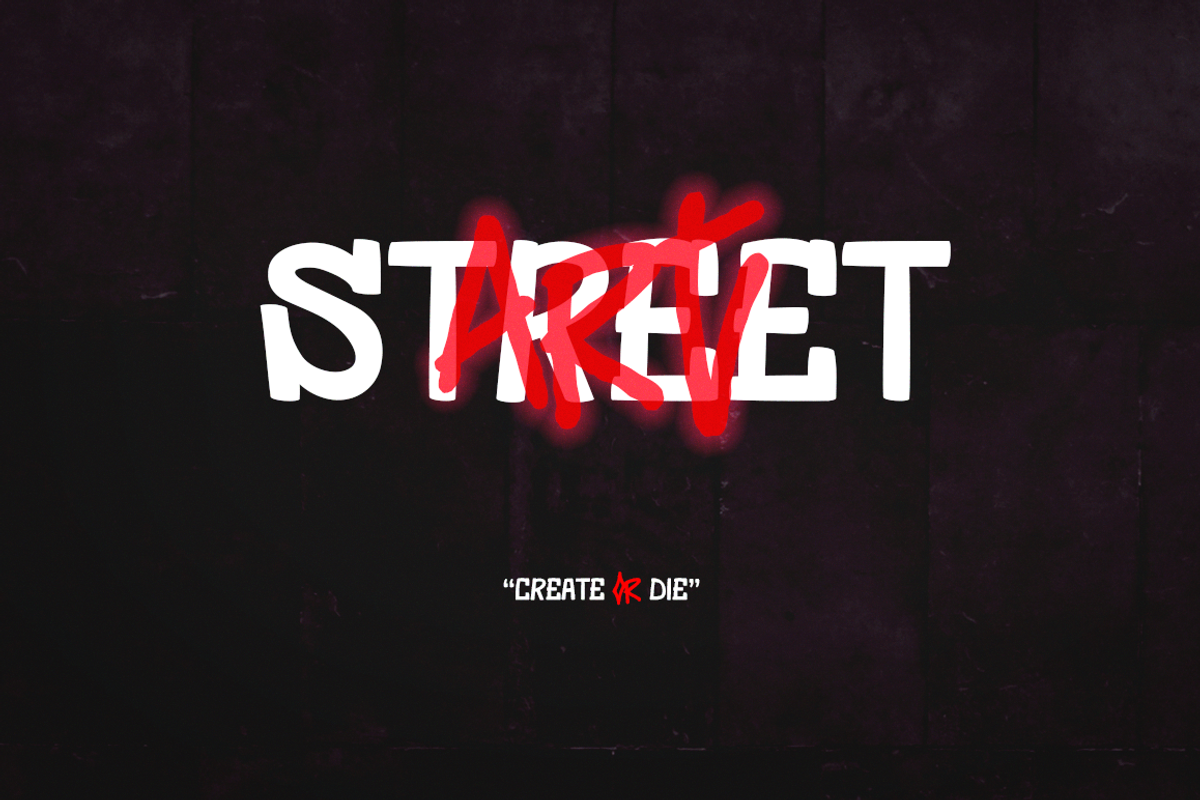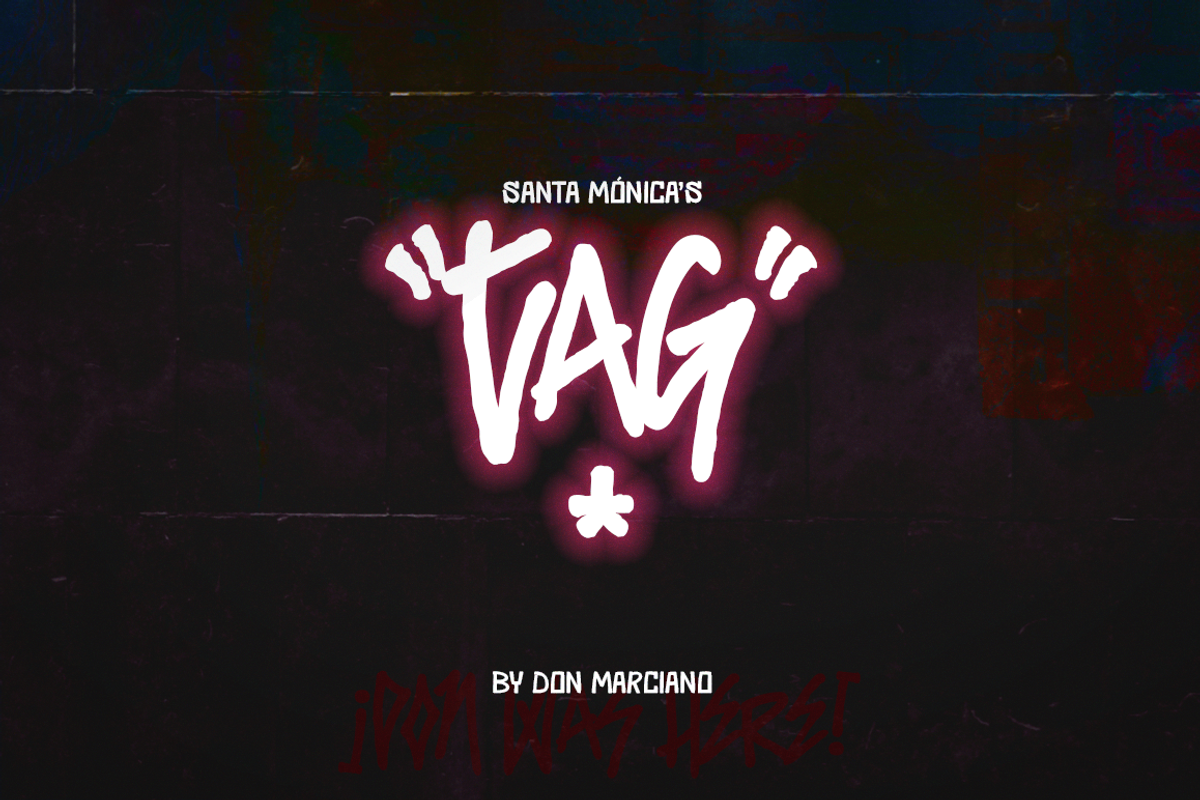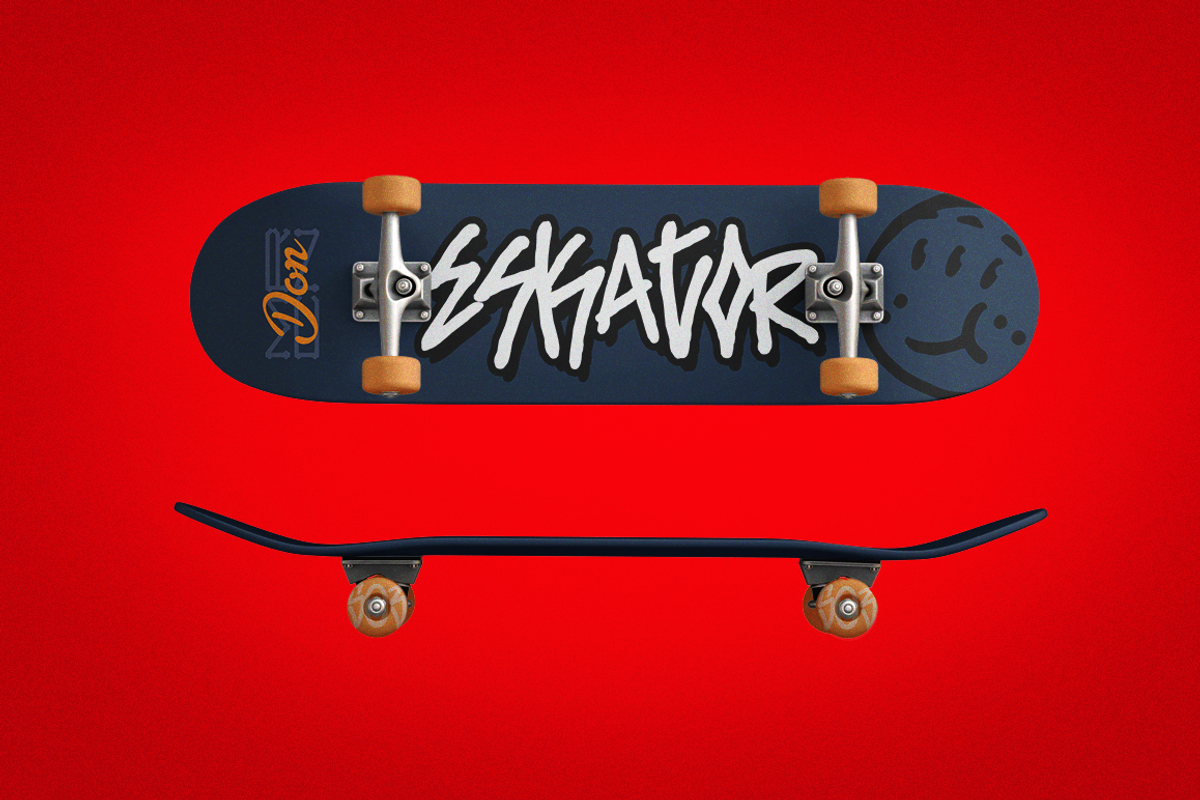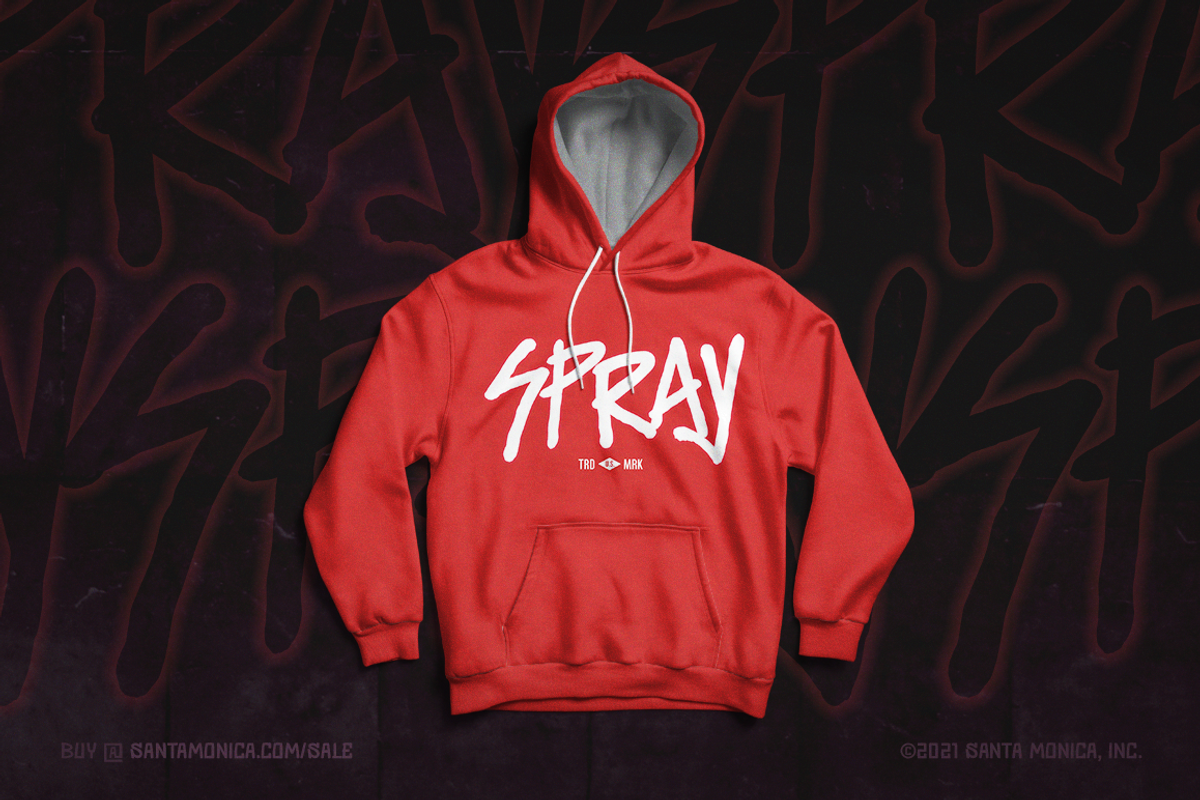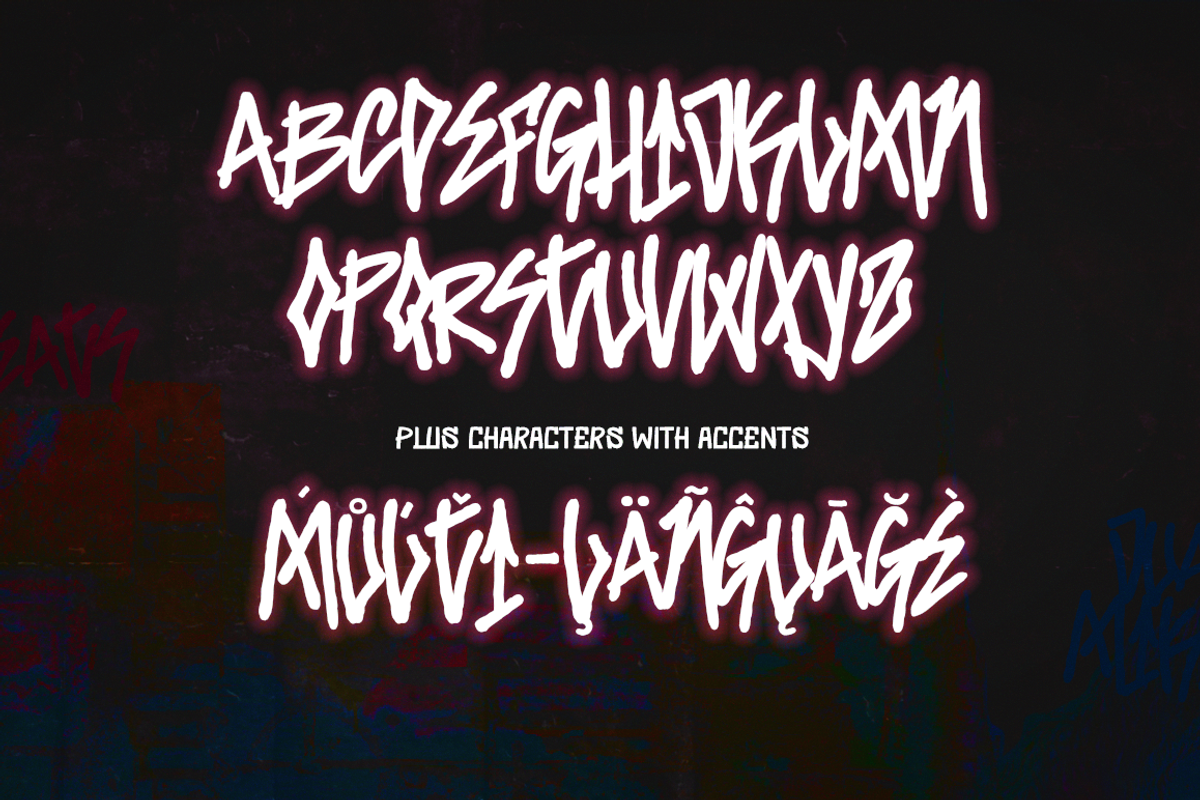
Santa Monica Tag
Santa Mónica Tag is an urban-inspired graffiti style font design with an uppercase only characters alphabet, which includes all the standard punctuation, and international characters for multi-language support, the rough lines, tight angles, and spacing between glyphs translate to a fresh take on the timeless practice of street art, it uses an uneven baseline and x-height with semi-bold features to define its look and feel.